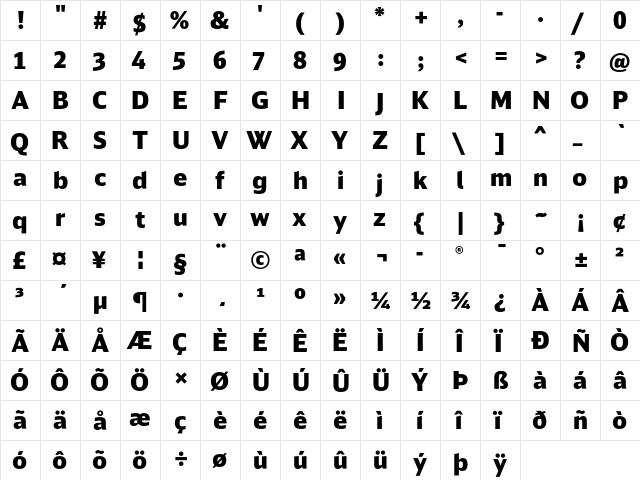
DB Sans Alternate Black Font Preview
DB Sans Alternate Black
DB Sans Alternate Black Font Details
Design Context for DB Sans Alternate Typeface
DB Sans Alternate takes a measured approach to typography — its balanced proportions and neutral character make it a reliable workhorse for both digital and print work.